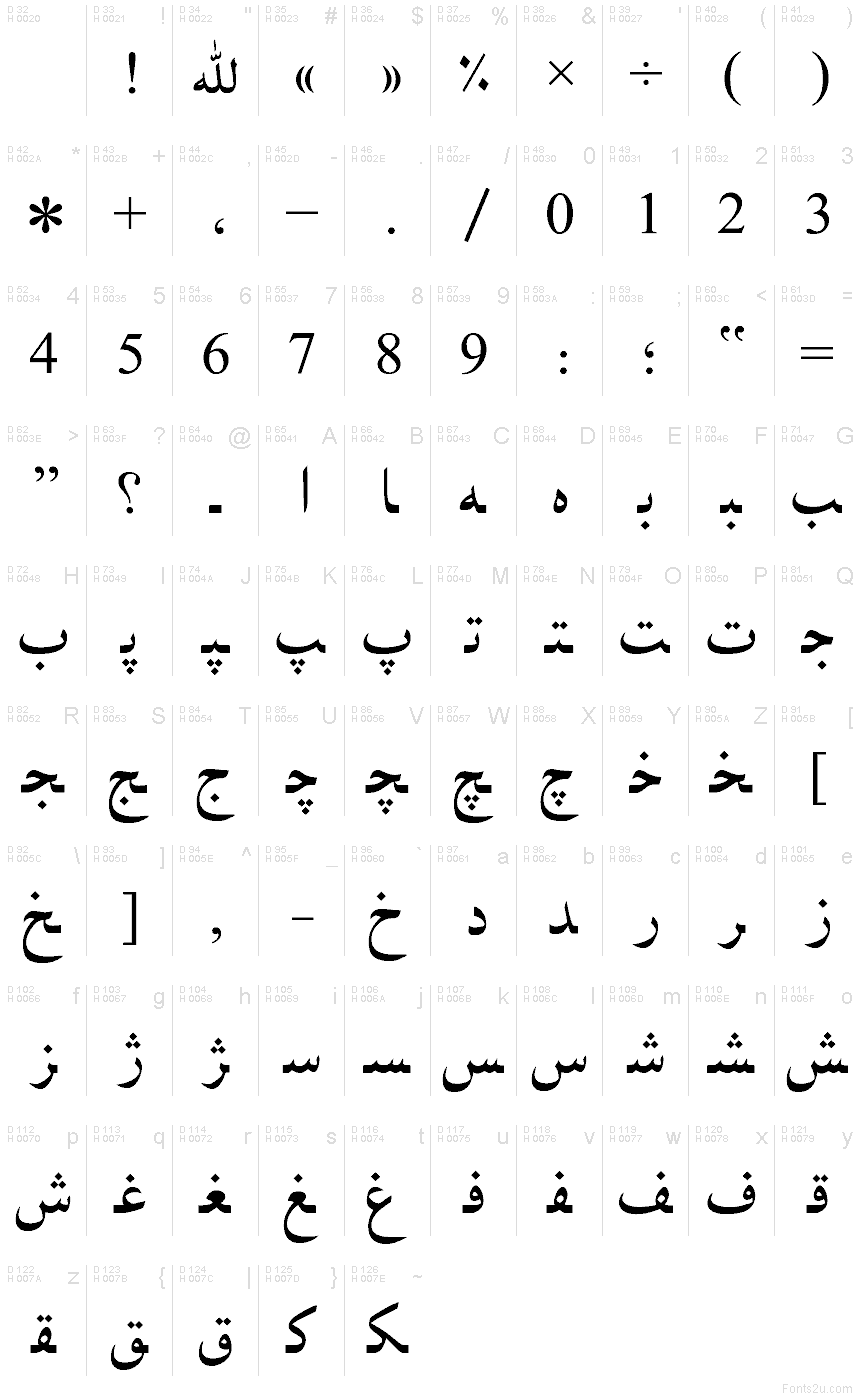
WTCArabicNaskhSSK3 Regular
WTCArabicNaskhSSK3 font gets inspired by a traditional Arabic style. It preserves the distinct shapes using elegant serifs to further refine its timeless appearance. WTCArabicNaskhSSK3 is a decorative text that balances cultural richness in letter heights variances and curves play.